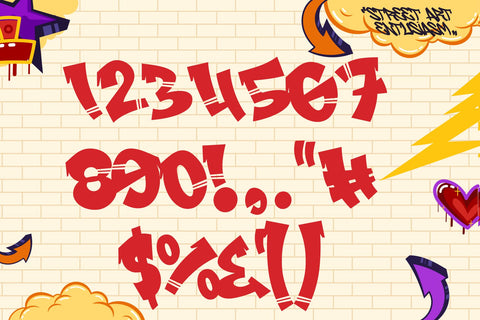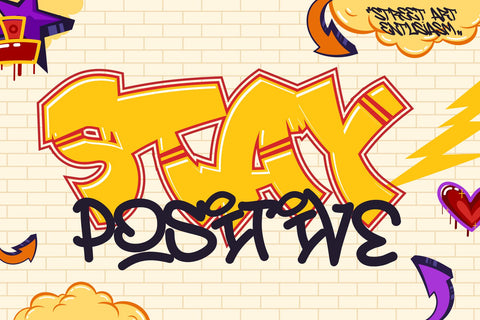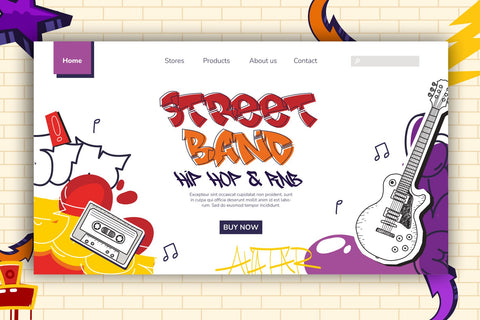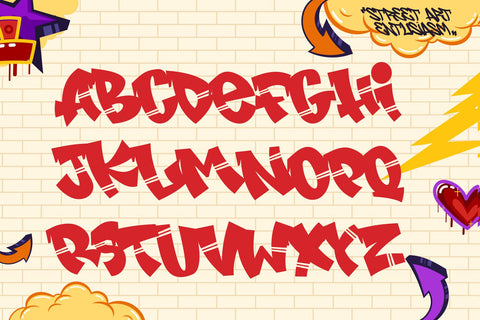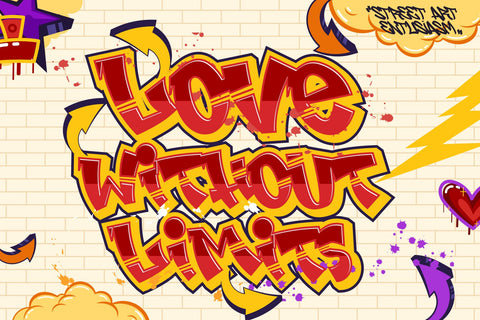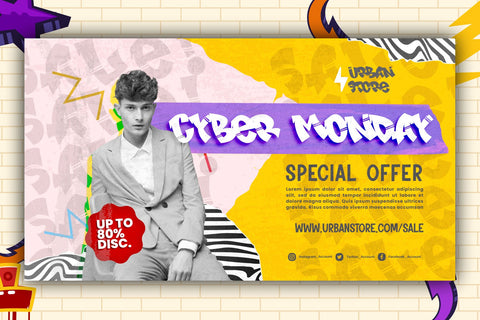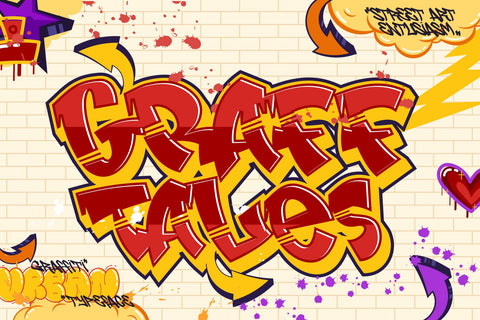
Graff Tales - Awesome Graffiti Font
Graff Tales is a bold graffiti font that features small gaps within each character, creating the appearance of authentic street art. Its thick strokes and realistic design make it ideal for projects that aim to capture the raw, edgy essence of urban graffiti. This font is perfect for branding, posters, album covers, and any other creative endeavors that require a genuine graffiti look. Bring the streets to your designs with Graff Tales and make a bold statement that stands out.